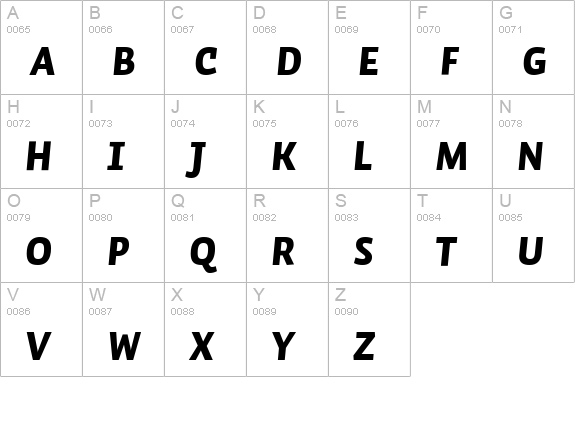
Auto 1 Black Italic LF is a maximum-weight, dramatic, italic variant in the Auto typeface family \xE2\x80\x94 well suited to maximum-impact headlines, posters, and packaging.
Auto 1 Black Italic LF font is a modern and sleek typeface that exudes sophistication and elegance. Its bold and italic design adds a touch of flair to any project, making it perfect for headlines, titles, and branding materials. The font's clean lines and sharp angles give it a contemporary edge, while its legibility ensures readability in various applications. Best of all, Auto 1 Black Italic LF font is available for free download at FontsMarket.com. This means you can easily access this stylish font and use it in your designs without any cost. Whether you're working on a personal project or a professional assignment, Auto 1 Black Italic LF font is a versatile and eye-catching choice that will elevate your work to the next level. Download it today and add a touch of sophistication to your designs!